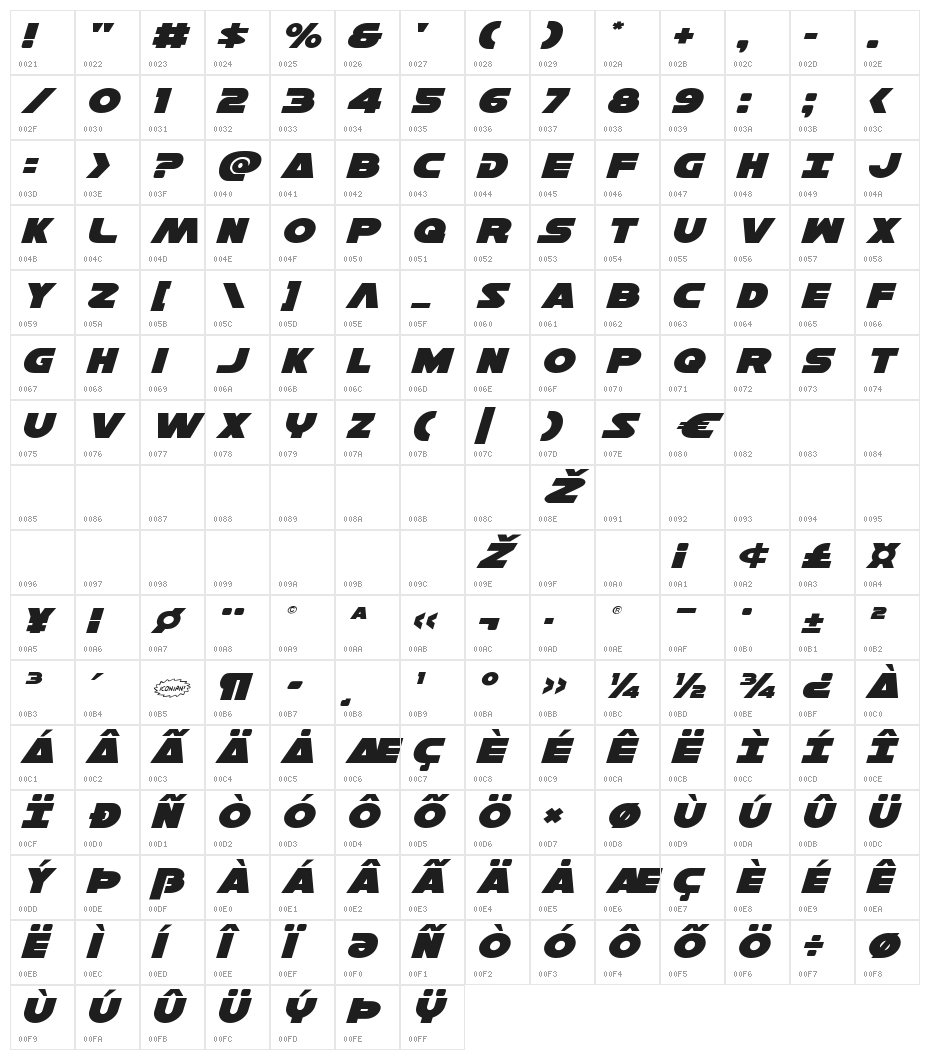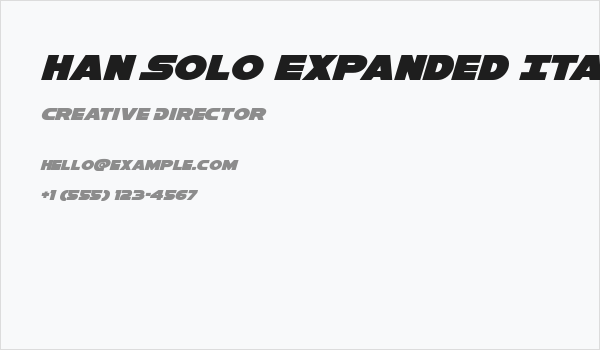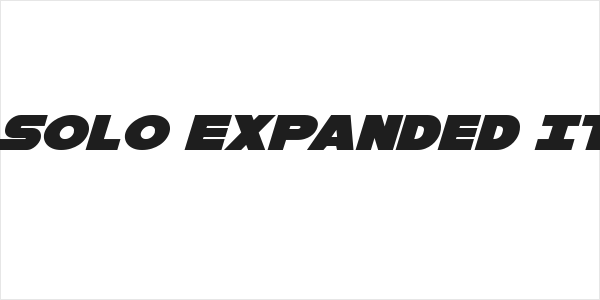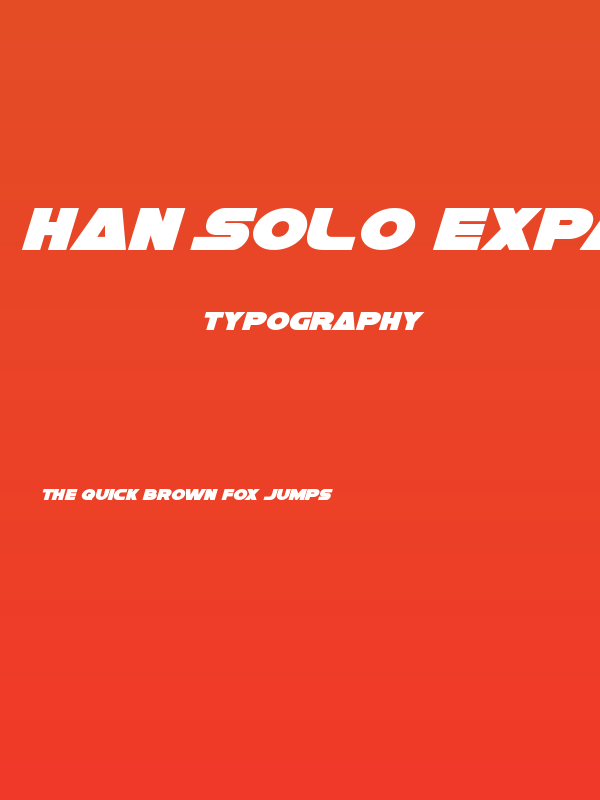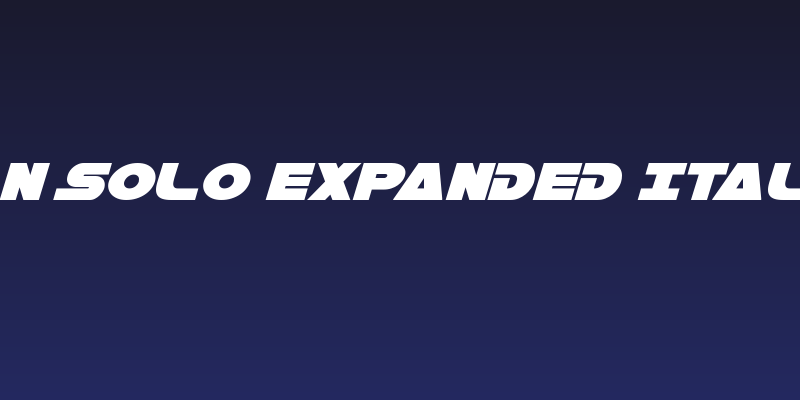
Han Solo Expanded Italic Font
Han Solo Expanded Italic Description
This font features a bold and dynamic style with an italic slant, giving it a sense of motion and energy. The characters are expanded, providing a wide stance that enhances readability while maintaining a strong visual impact. The strokes are thick and consistent, contributing to a high contrast appearance that makes each letter stand out distinctly. The design is modern and sleek, suitable for projects that require a bold statement. The uppercase and lowercase letters, along with numbers and special characters, are uniformly styled, ensuring a cohesive look across different uses.